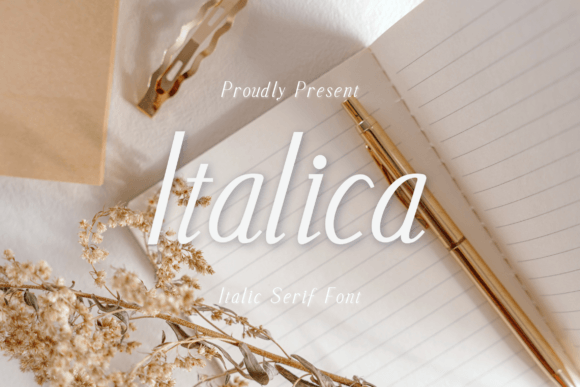
Introducing Italica Font: Elevate Your Brand Narrative with a Unique, Angular Serif
In the realm of typography, fonts play a pivotal role in shaping the visual identity of a brand. The right font can elevate your brand’s message, making it more engaging and memorable. This is where Italica Font comes into playβa unique, angular serif font that brings a distinctive lean and a bohemian charm to the table. Infused with character and style, Italica is designed to add an intriguing twist to your brand narrative, enriching your visual language with its creatively inclined typography.
What is Italica Font?
Italica Font is a specially crafted typeface that stands out due to its angular serifs and distinctive lean. This font is not just a simple collection of characters; it’s a tool that can transform your brand’s visual communication. Whether you’re working on a website, a print project, or a digital application, Italica brings a unique flair that can set your content apart from the crowd.
The design of Italica Font is centered around creating a bohemian charm that resonates with brands looking to express their individuality. Its unique design elements make it perfect for creative projects, branding, and any application where you want to leave a lasting impression.
The Characteristics of Italica Font
Italica Font boasts several characteristics that make it a standout choice for designers and brands alike. Here are some of its key features:
- Unique Angular Serifs: The angular serifs of Italica give it a distinctive look that sets it apart from traditional serif fonts.
- Distinctive Lean: The lean of Italica adds a dynamic feel to the text, making it more engaging and visually appealing.
- Bohemian Charm: Italica’s design is infused with a bohemian charm, making it perfect for brands that want to convey a sense of creativity and individuality.
- Rich in Character and Style: With Italica, you get a font that is rich in character and style, allowing you to add depth and personality to your brand’s message.
These characteristics make Italica Font a versatile choice that can be used across various platforms and applications, from digital interfaces to print materials.
Benefits of Using Italica Font
Choosing the right font for your brand can have a significant impact on how your message is received. Here are some benefits of using Italica Font:
- Enhanced Visual Appeal: Italica’s unique design elements enhance the visual appeal of your content, making it more attractive to your audience.
- Improved Brand Identity: By using a distinctive font like Italica, you can strengthen your brand identity and make your brand more recognizable.
- Versatility: Italica Font is versatile and can be used across different mediums, including digital platforms, print materials, and more.
- Emotional Connection: The bohemian charm of Italica can help create an emotional connection with your audience, making your brand more relatable.
By incorporating Italica Font into your brand’s visual language, you can enjoy these benefits and more, ultimately leading to a stronger brand presence and engagement.
How to Use Italica Font Effectively
To get the most out of Italica Font, it’s essential to use it effectively. Here are some tips on how to incorporate Italica into your design projects:
- Pair it with Complementary Fonts: When using Italica, consider pairing it with complementary fonts to create a harmonious visual hierarchy.
- Use it for Headings and Titles: Italica’s unique design makes it perfect for headings and titles, where you want to grab attention and make a statement.
- Experiment with Colors and Textures: Don’t be afraid to experiment with different colors and textures to enhance the visual impact of Italica.
- Consider the Context: Always consider the context in which Italica will be used, ensuring it aligns with your brand’s message and audience.
By following these tips, you can effectively use Italica Font to elevate your brand’s visual communication and create a lasting impression on your audience.
In conclusion, Italica Font is a unique, angular serif font that brings a distinctive lean and a bohemian charm to the world of typography. Rich in character and style, Italica has the potential to transform your brand narrative, making it more engaging, memorable, and visually appealing. Whether you’re looking to enhance your brand identity, create an emotional connection with your audience, or simply stand out in a crowded market, Italica Font is an excellent choice.
So, why settle for ordinary when you can make a statement with Italica? Explore the possibilities of Italica Font today and discover how it can elevate your brand’s visual language to new heights.
FAQs about Italica Font
Q: What makes Italica Font unique?
Q: How can I get the most out of Italica Font?
A: To get the most out of Italica Font, consider pairing it with complementary fonts, using it for headings and titles, experimenting with colors and textures, and always considering the context in which it will be used.
Q: Is Italica Font suitable for digital applications?
A: Yes, Italica Font is versatile and can be used across various platforms, including digital applications. Its unique design ensures it remains legible and visually appealing on screens.